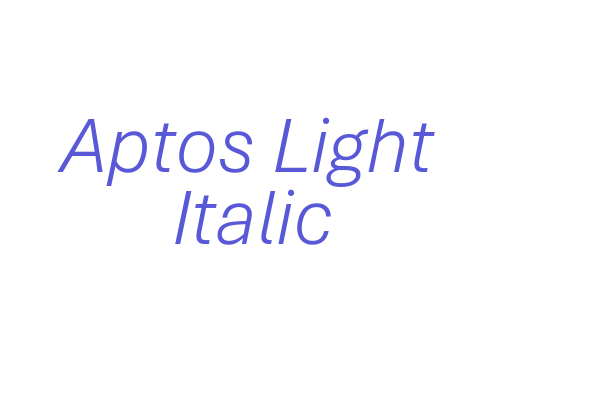
Aptos Light Italic is a sleek and modern font from the Aptos font family designed by Steve Matteson. This basic sans serif font features a light italic style, making it perfect for adding a touch of elegance to any design. Ideal for use in headings, quotes, and other creative projects that require a subtle and sophisticated touch.
Font Name: Aptos Light Italic
Designer: Steve Matteson